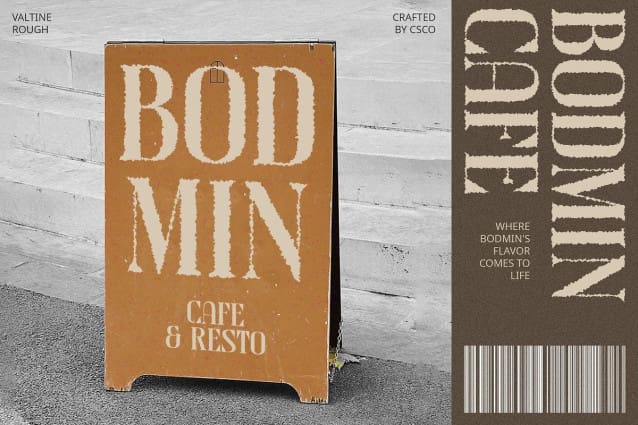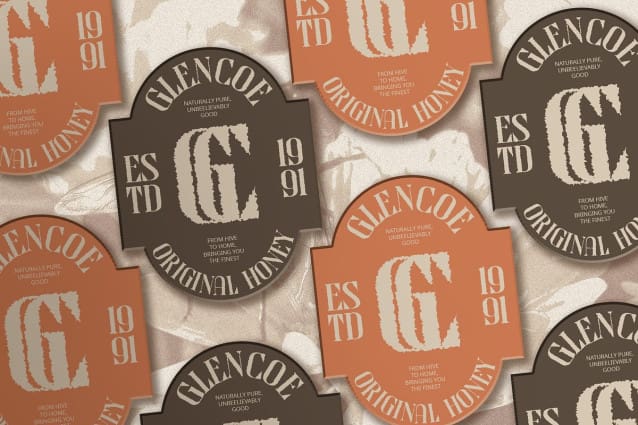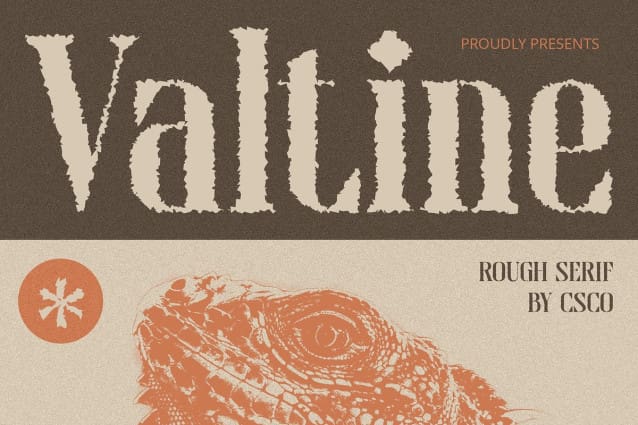
Valtine Rough Font
Valtine Rough Font is a serif font with a retro style, condensed form, and rough effect. Ideal for nostalgic projects, it brings a blend of classic charm and rugged texture to posters, branding, and editorial designs.
With its retro style and rugged texture, Valtine Rough is perfect for projects aiming to evoke a sense of nostalgia. This font captures the essence of vintage design, making it suitable for a wide range of creative applications.
Valtine Rough enhances posters and branding materials with its distinctive appearance. Its condensed form and rough effect add a unique touch, ensuring your designs stand out with a bold and memorable impression.
Versatile and visually appealing, Valtine Rough adapts seamlessly to editorial designs. From magazine spreads to book covers, this font adds a classic yet rugged aesthetic that enhances the overall visual appeal of your work.